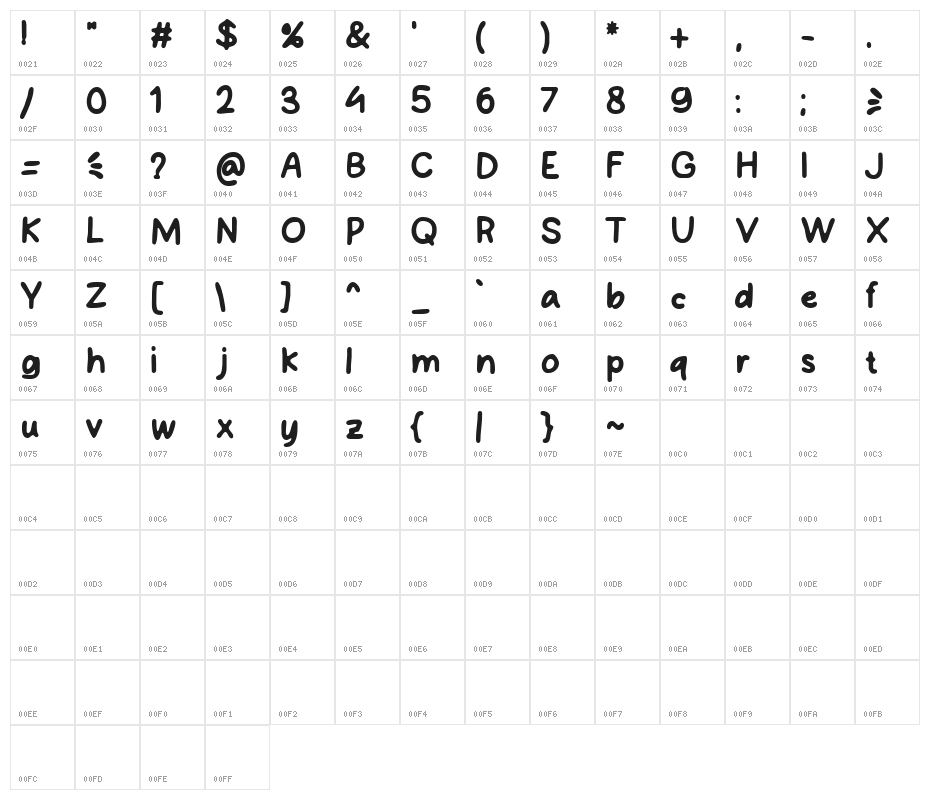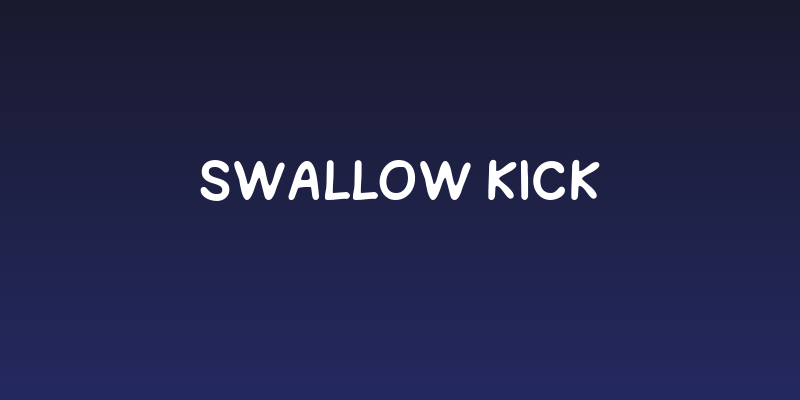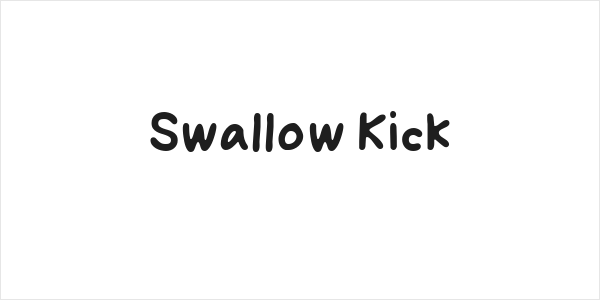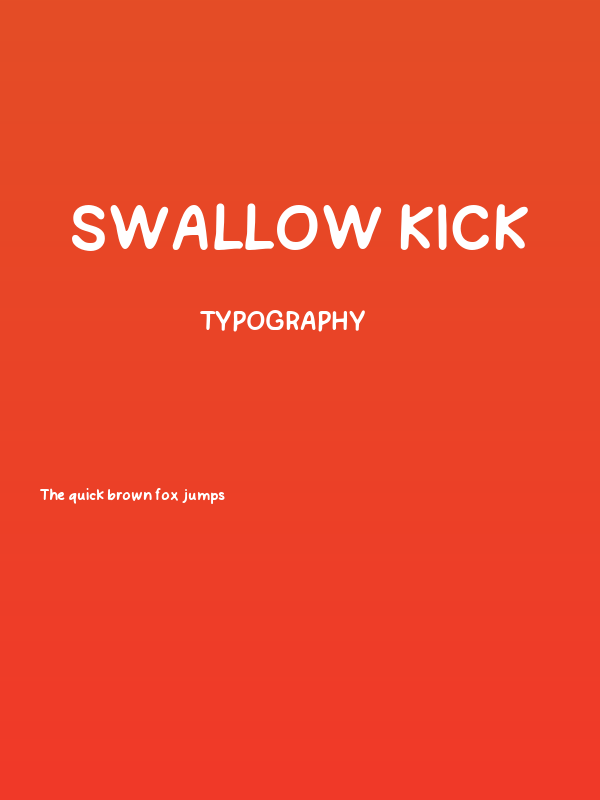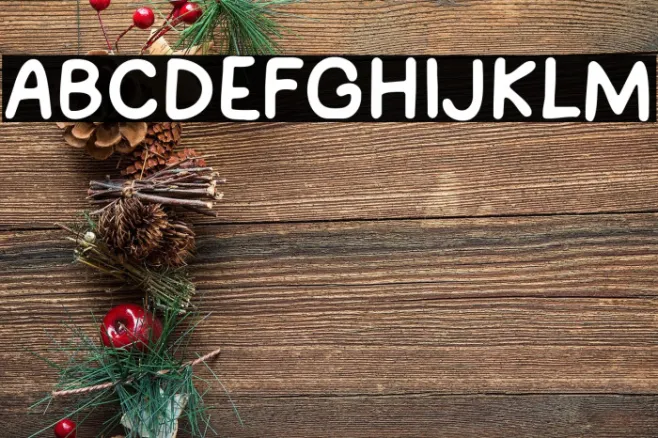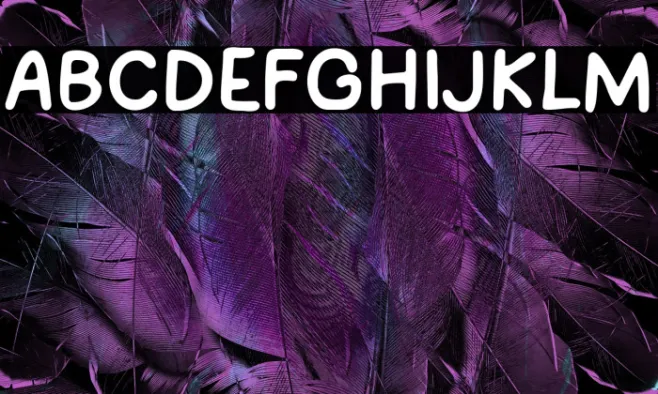
Swallow Kick Font
Swallow Kick Description
This playful and bold font features rounded edges and a hand-drawn aesthetic, giving it a friendly and approachable look. The characters are slightly irregular, adding to its charm and making it ideal for informal and creative projects. The uppercase and lowercase letters are well-balanced, with consistent stroke widths that maintain readability. The numerals and special characters complement the overall style, ensuring versatility across various uses.
| Proposed Projects | Ideal for children's books, playful branding, greeting cards, and creative posters. |